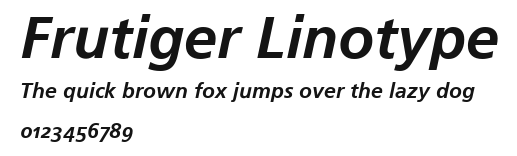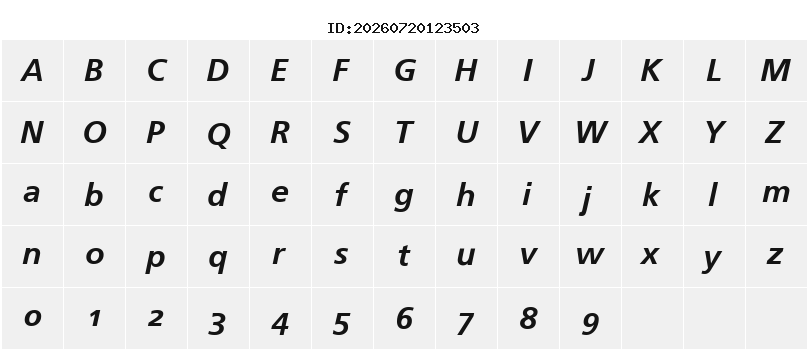
• Font Name: Frutiger Linotype
• Font ID: Frutiger Linotype Bold Italic
• Full Font Name: Frutiger Linotype Normal
• PostScript Name: FrutigerLinotype-BoldItalic
• Designer: Adrian Frutiger
• Manufacturer: LINOTYPE-HELL AG
• Description: In 1968, Adrian Frutiger was commissioned to develop a lettering system for the new Charles de Gaulle Airport in Paris. He created Frutiger, a font whose character fit in with the modern architecture of the airport. Frutiger is neither purely constructed nor ornamental, its forms designed so that each individual character is quickly and easily recognized, even from a distance. Such clarity and legibility makes Frutiger the perfect font for signage and other applications, where the distinctness of characters is of high importance.
Frutiger Linotype.ttf is a modern, elegant sans-serif font designed for ultimate readability and visual harmony. Perfect for branding, headlines, web design, and print materials.